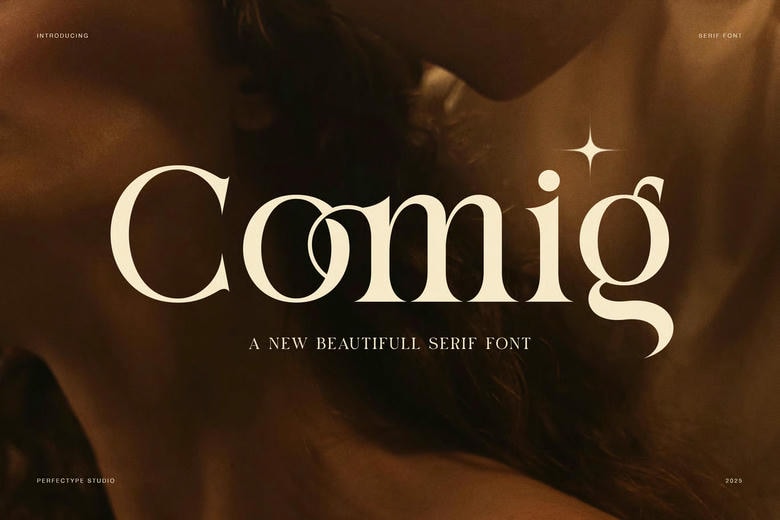
Comig Font
Comig is an elegant serif typeface which combines the traditional structure with the expressive typeface. The design has smooth curves, sharp ends and elegant contrast. Consequently, the font is very warm and confident and it is timeless and modern.
In addition, Comig applies fined proportions, which maintain all the letters balanced. The lines are gentle yet restrained, and this renders text a soothing rhythm. Thus, designers have the ability to come up with designs that do not appear hard. All the characters are organically flowing, which enhances visual harmony between headlines and branding.
Constructed to be Atmospherically and Storytelling. Comig encourages designs that are mood-based and emotion-based. The font is especially good at the lifestyle branding, editorial layouts, and creative campaigns because the letterforms are expressive. Moreover, its prestigious serif typeface improves cafes, florists, fashion brands, and jewelry companies.
Designers usually prefer Comig in works that require cozy and character to be added on the project. The font is good in hotel images, coffee packaging and boutique identities, as an example. Moreover, Comig makes lookbooks, posters, and social media graphics look better. Consequently, brands are able to have a uniform visual voice.
Useful Typography of an Artistic Nature. Comig is a mixture of beauty and functionality. The typeface has upper and lower case letters, digits, punctuations, and a thick punche. These ligatures provide even indistinct bodies and enhance typographic clarity. At the same time, there is no clutter in the spacing that makes text easy to read both on print and in digital copy.
Since Comig has distinct contrast, it is suitable on headlines and brief text boxes. Hence, it can be used by designers without any doubt in logos, menus, package, and editorial titles. The font allows room to be creative and at the same time is understandable.
Comig Serif Font